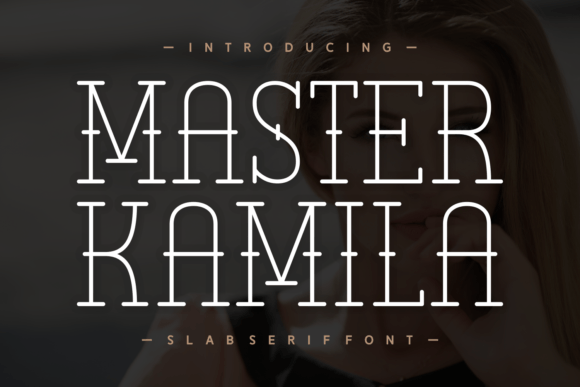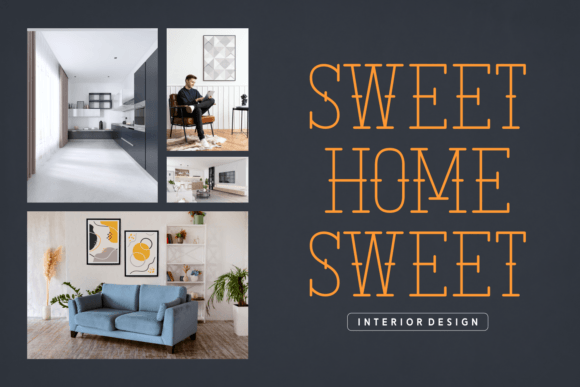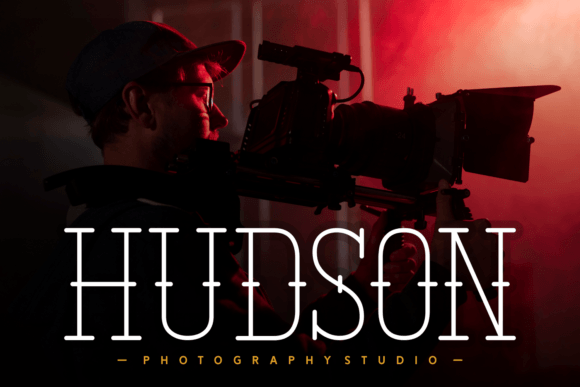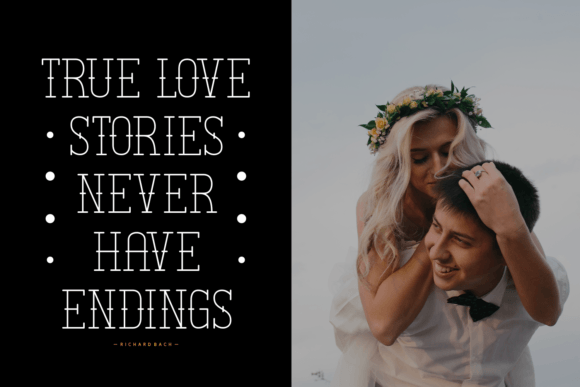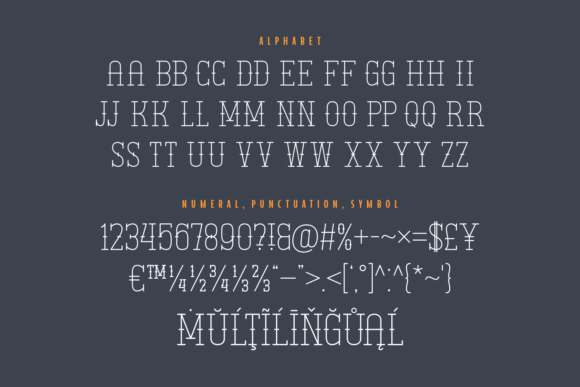
Master Kamila
About Master Kamila
Master Kamila is n elegant slab serif font that has thin, straight-edged letters, and a crisp, bold look. Its sleek lines and classic style make it perfect for logos, headlines, and other stylish designs.